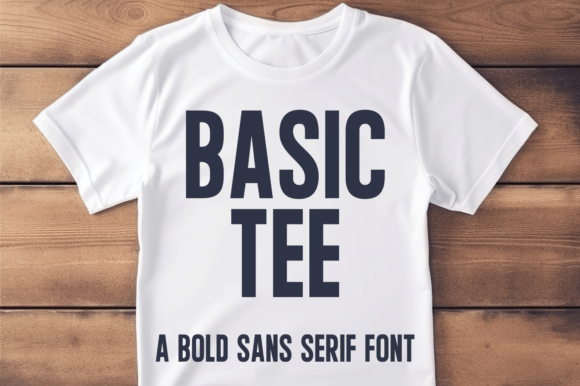
Discover the Power of Simple Design with Basic Tee Font
Have you ever stared at a blank page, trying to come up with the perfect design concept, only to feel overwhelmed by the endless options? You’re not alone. As a crafter, I’ve been there too. But what if I told you that sometimes, the simplest approach is the most effective? Enter Basic Tee Font, a versatile and clean sans-serif font designed specifically for crafters like you.
With Basic Tee Font, you can effortlessly create stunning designs for book covers, magazines, social media posts, invitations, and more. Its minimalist vibe makes it easy to apply to any project, ensuring a consistent look and feel that’s sure to impress. Whether you’re a seasoned designer or just starting out, Basic Tee Font is a valuable addition to your toolkit, offering a fresh perspective on simple yet effective design.
- Unique Characteristics: The Basic Tee Font features a clean, modern design with rounded edges and a subtle texture, making it highly legible and visually appealing in both on-screen and print applications.
Basic Tee Font Review
When I first came across the Basic Tee Font, I was immediately drawn to its simplicity and versatility. The clean lines and minimal design make it a great choice for a variety of projects, from logos to text-based interfaces. ✨ It’s also very easy to customize, with a range of weights and styles available to suit your needs.
One of the things that I appreciate most about this font is its versatility. It’s a great choice for both digital and print projects, and it works well in a range of contexts, from fashion to technology. ✨ The font is also highly legible, making it a great choice for text-heavy projects.
- ⚠️ Limited character set: While the font has a range of weights and styles, it’s not as comprehensive as some other fonts on the market.
- ⚠️ Limited language support: The font is primarily designed for English-language use, and it may not be suitable for projects that require language support.
Overall, I think the Basic Tee Font is a solid choice for a variety of projects. While it may have some limitations, its versatility and ease of use make it a great option for designers looking for a clean and simple font. With a little creativity, I think it has the potential to be a really effective choice for a wide range of applications.
Some common use cases for the Basic Tee Font include:
- Creating simple, clean text elements for branding materials
- Designing posters or flyers with a modern, minimalist aesthetic
- Adding a touch of elegance to presentations or reports